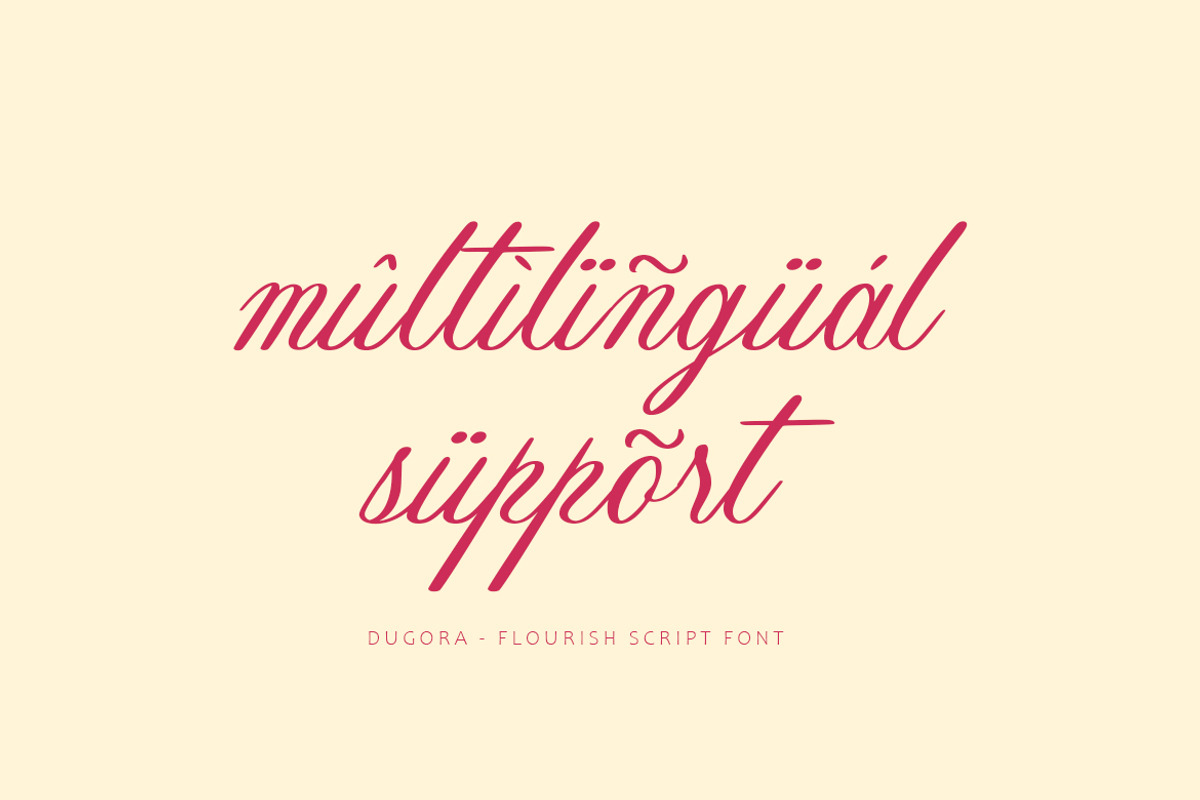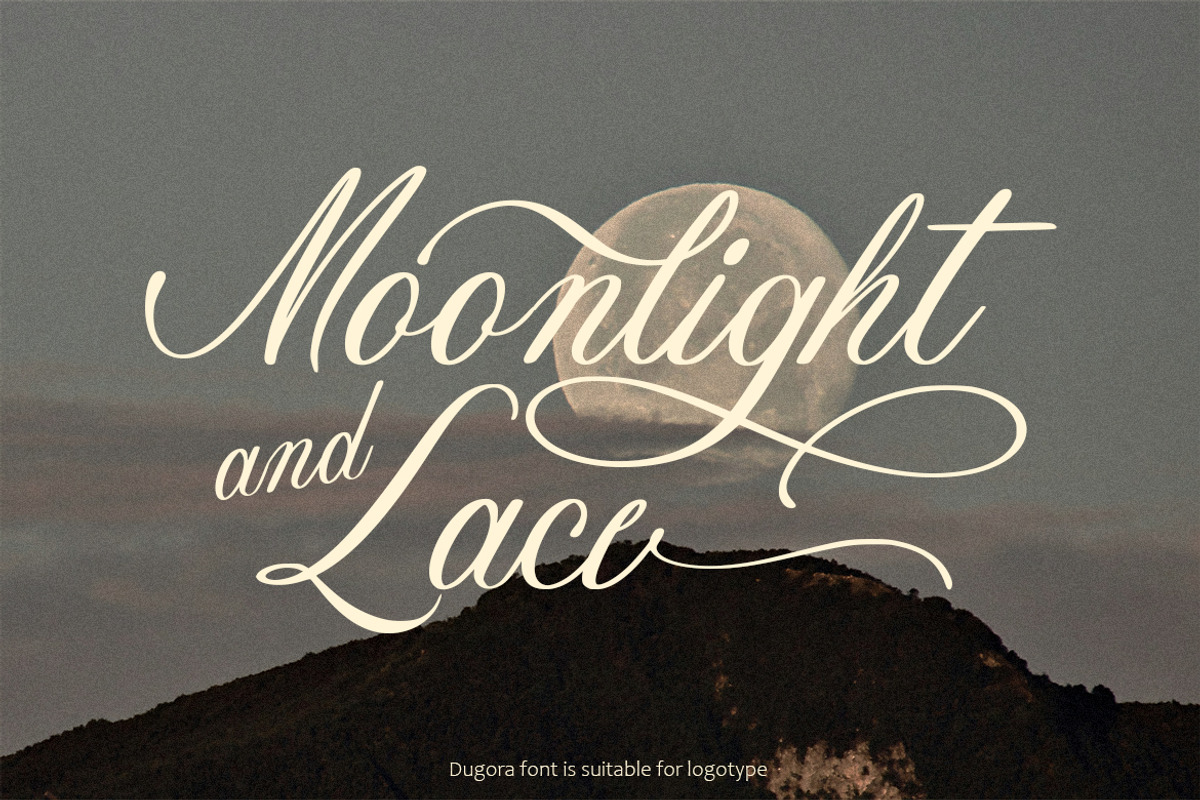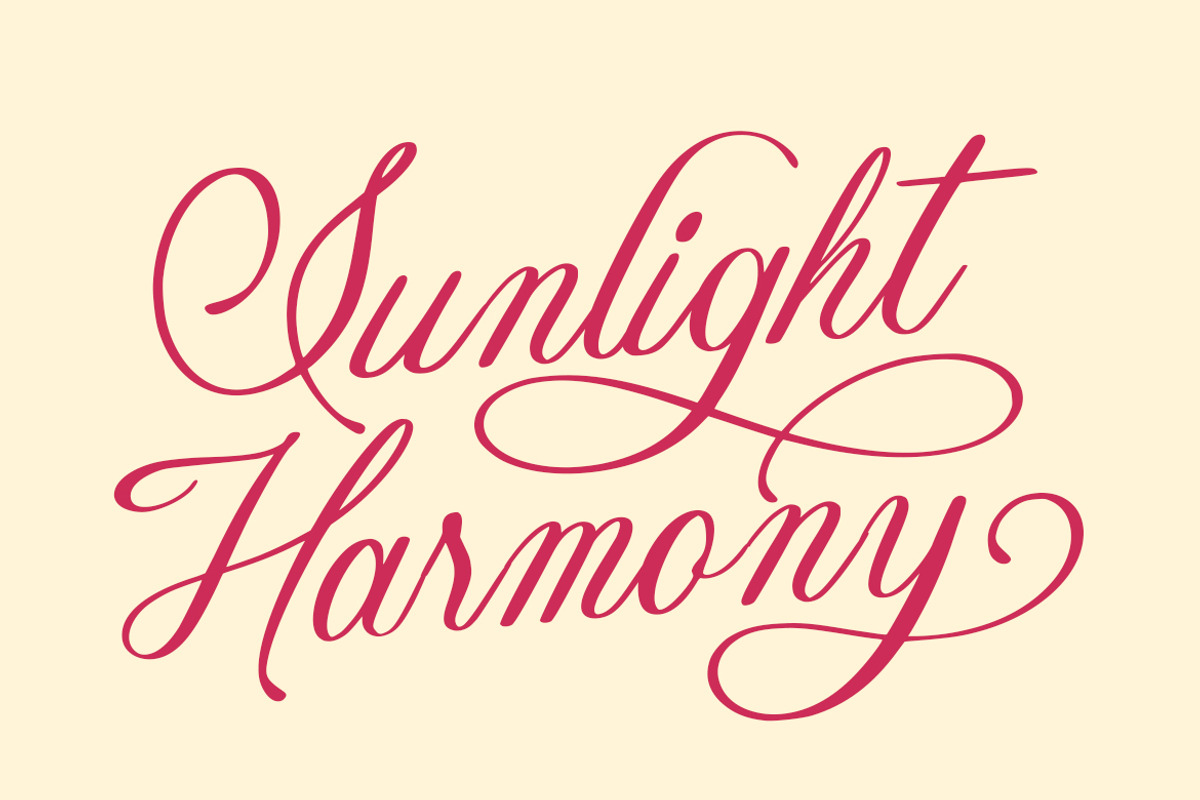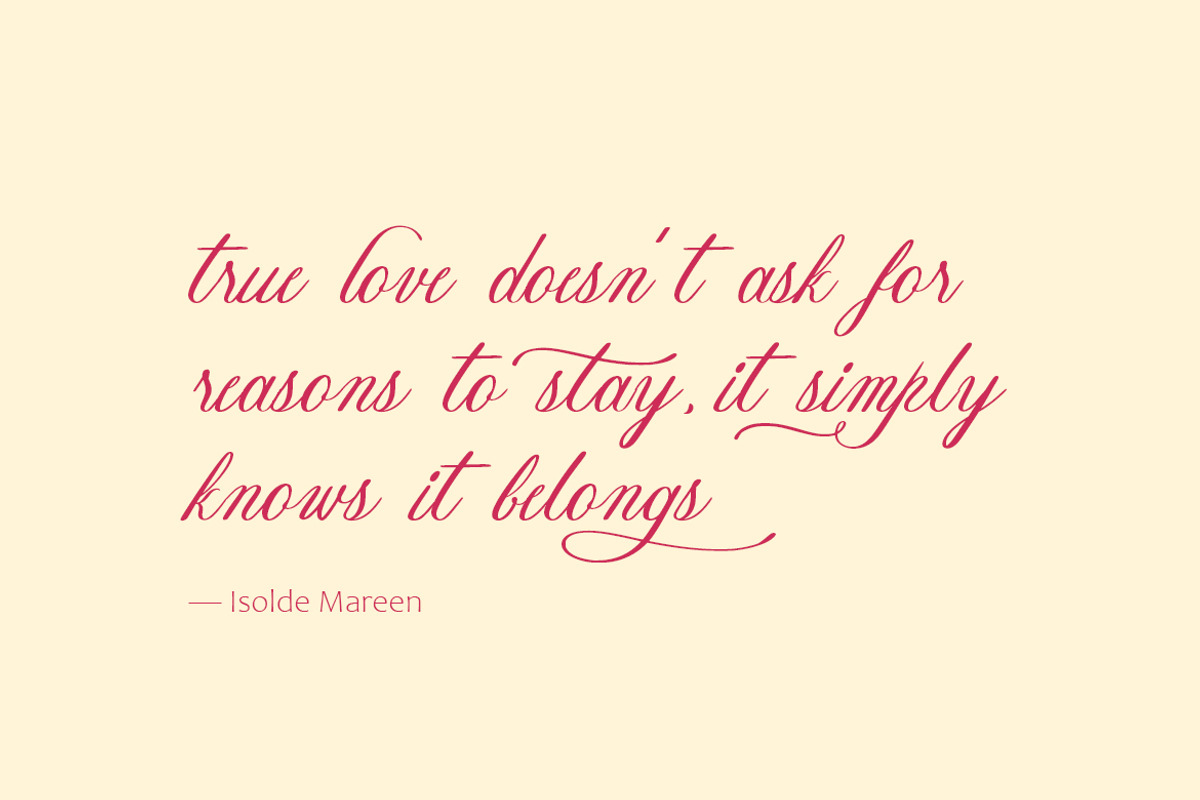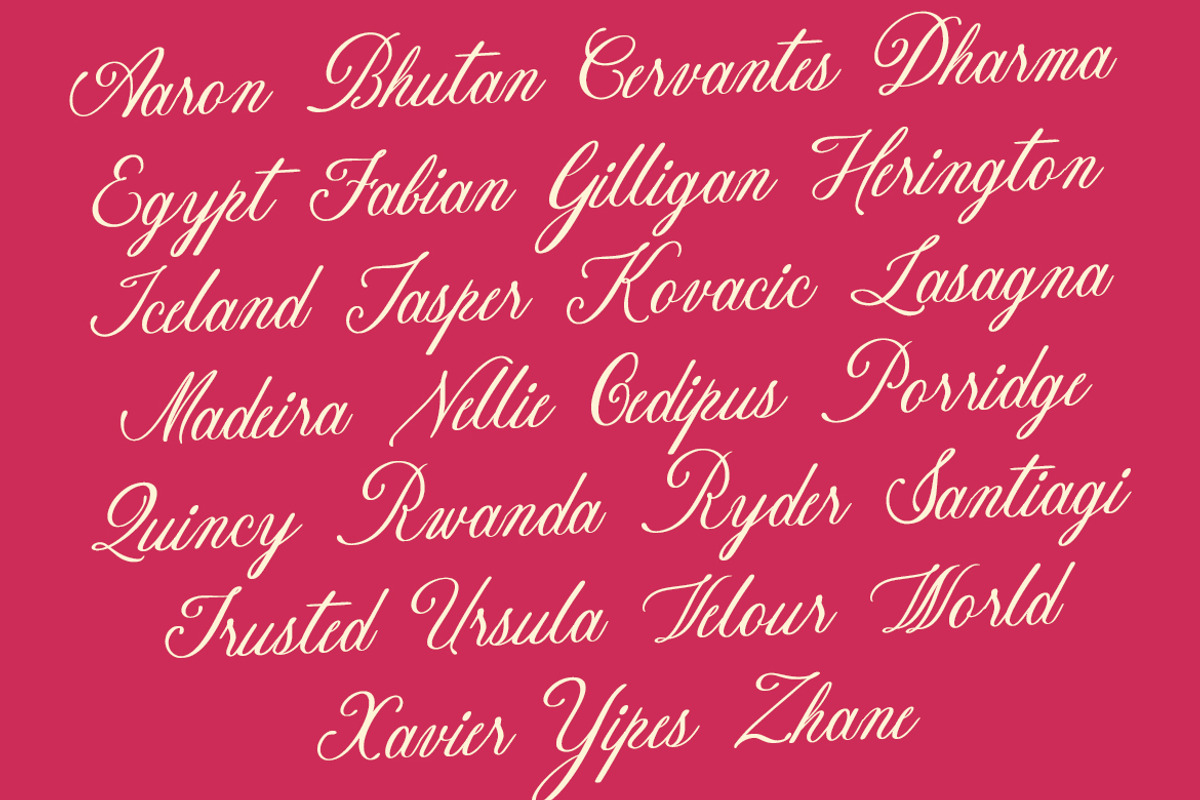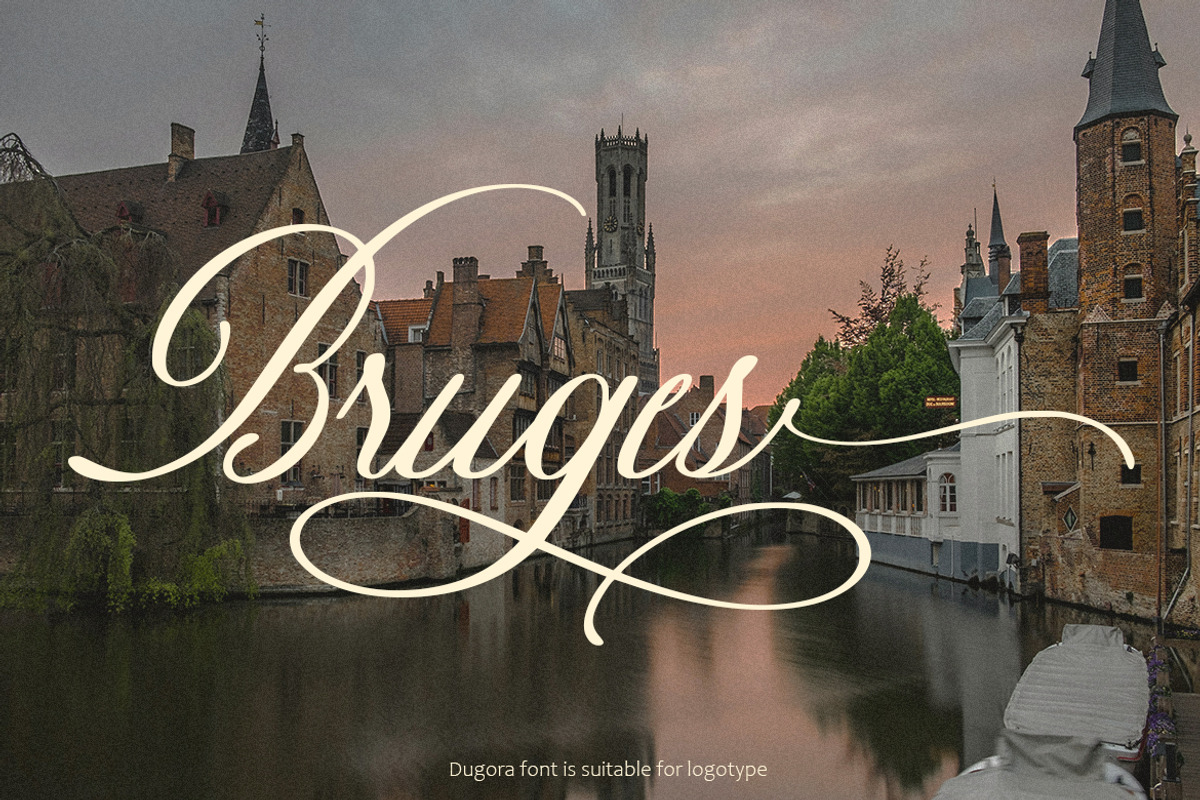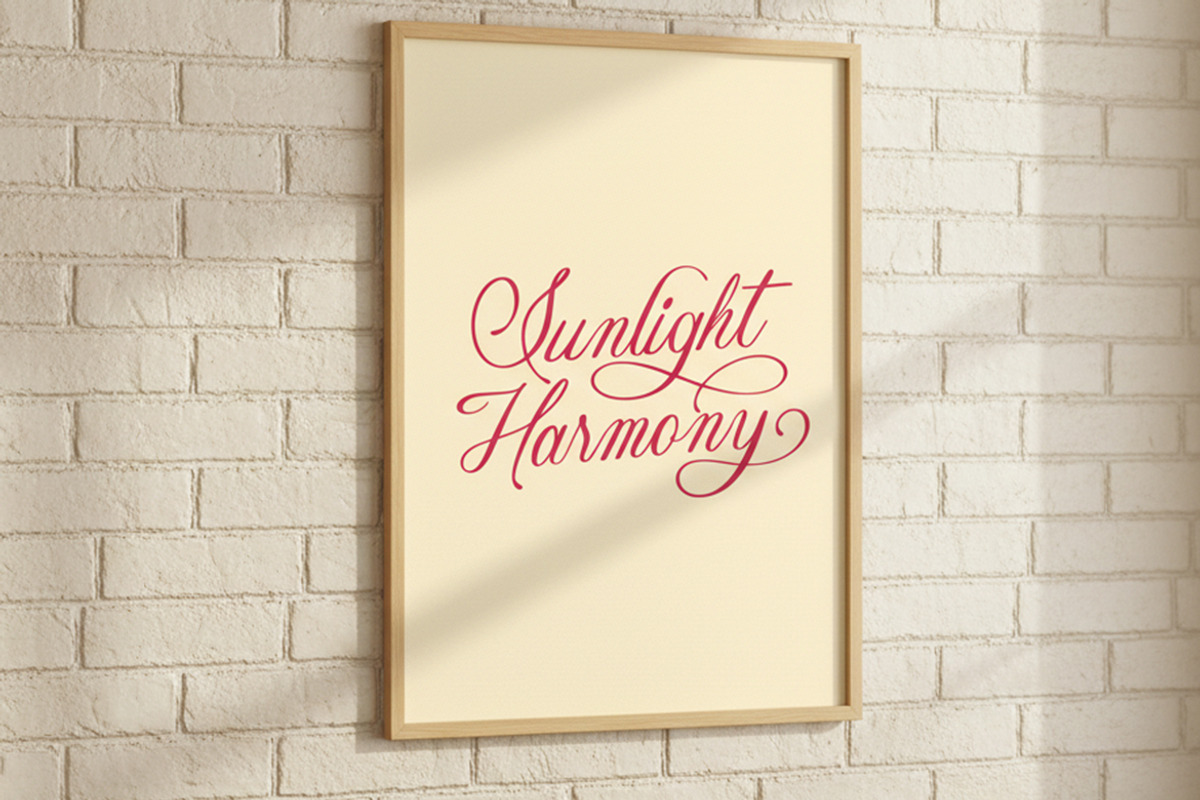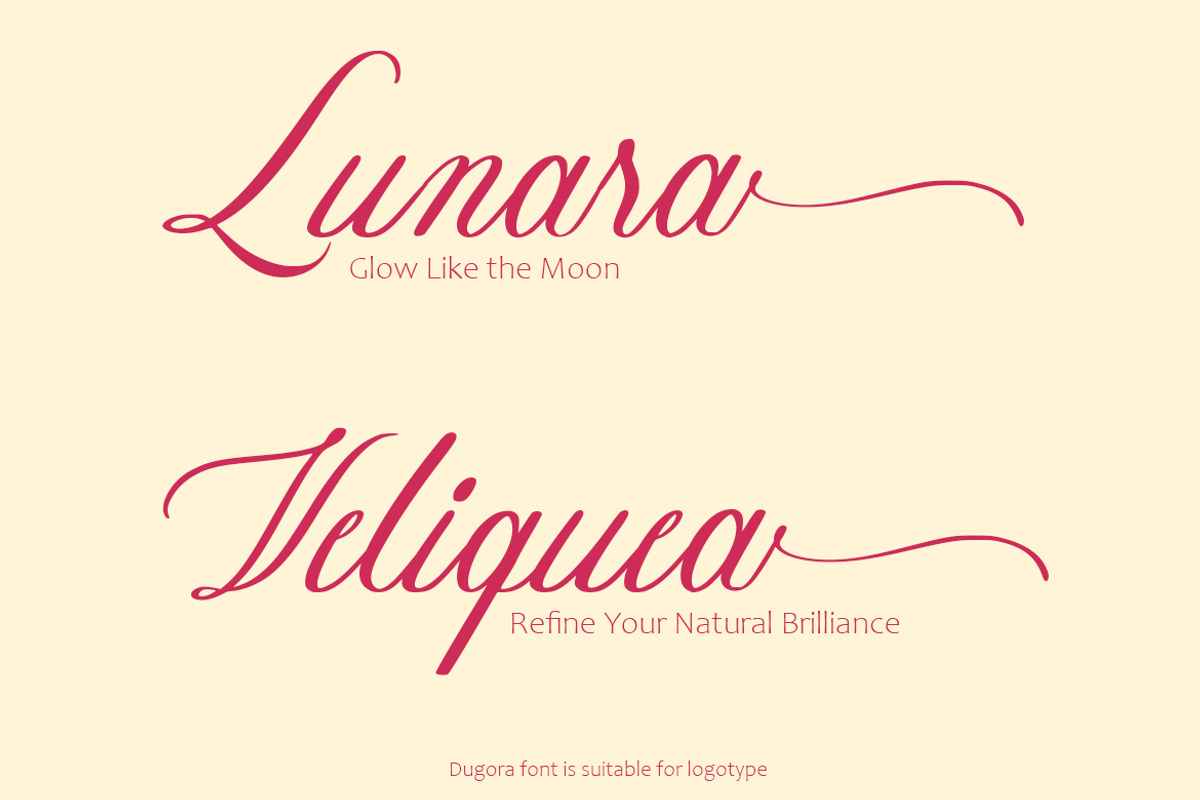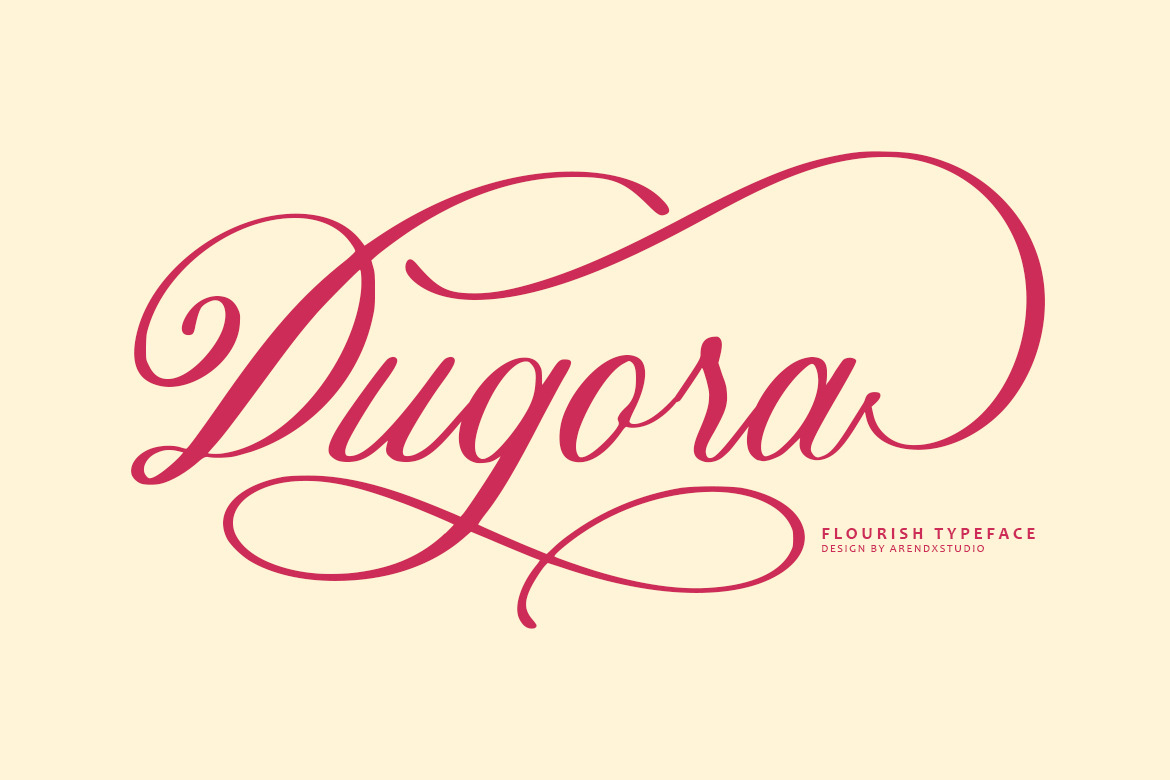
Dugora – Flourish Script Typeface
Dugora is a flourish script typeface that captures elegance, emotion, and timeless sophistication. It delivers a perfect harmony between artistic expression and refined form, making it ideal for projects that require a luxurious and graceful impression. Designed with beauty and fluidity in mind, Dugora enhances every creative work with personality and charm. Whether for branding, invitations, or editorial layouts, this typeface brings a sense of artistry that elevates your visual storytelling.